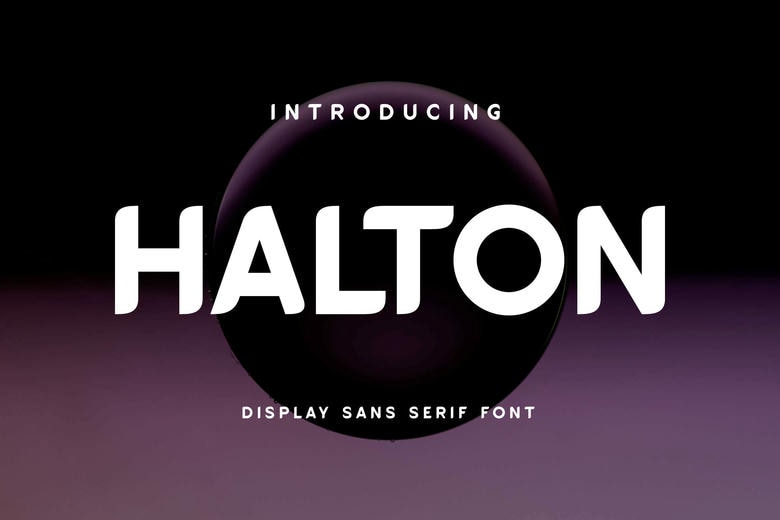
Halton Font
Halton is a typeface family which is minimalistic in nature combining the grace of serif with the simplicity of sans-serif font types. It has a clean line with slight curves, which is suitable in a wide range of design projects such as branding, advertising, editorial design, and web designs.
Halton Sans Serif Font